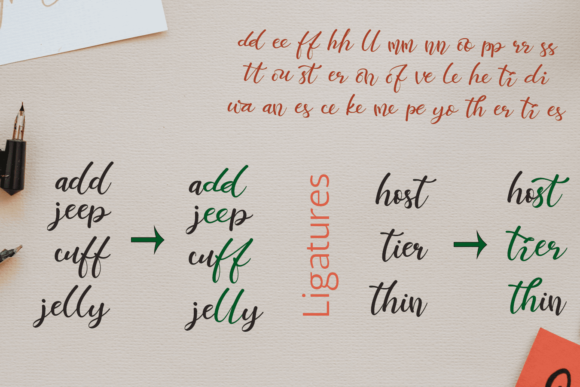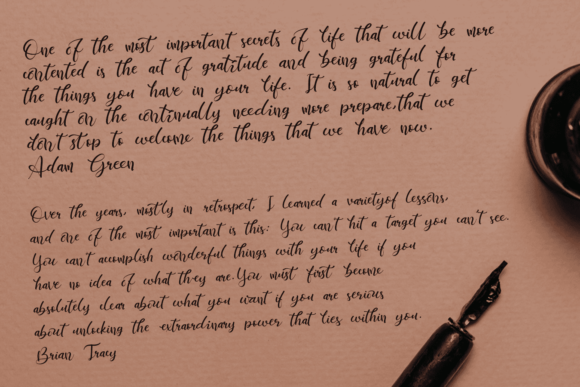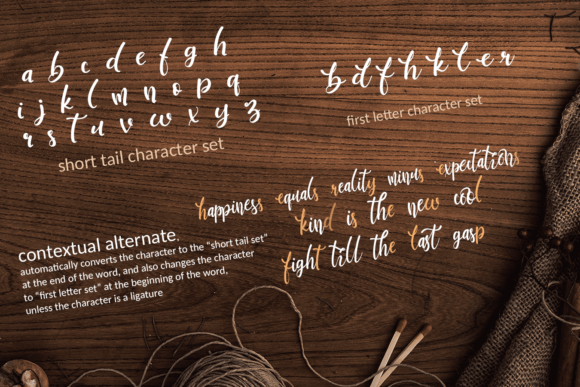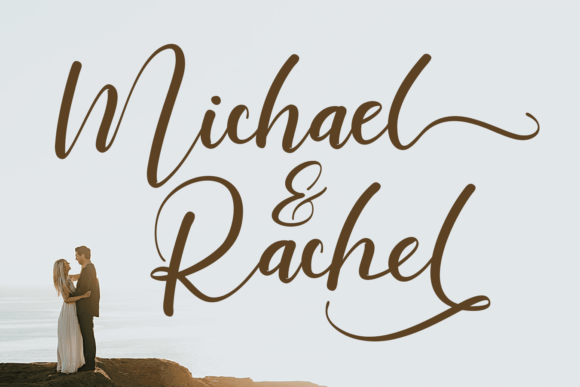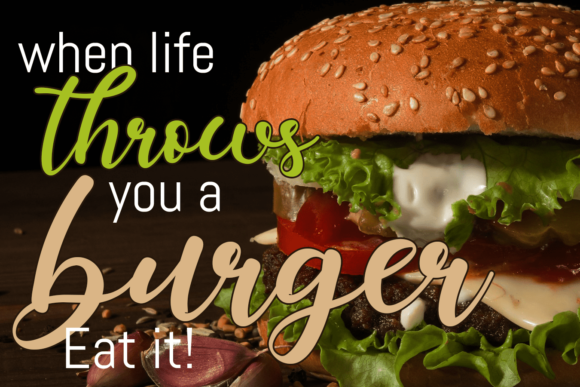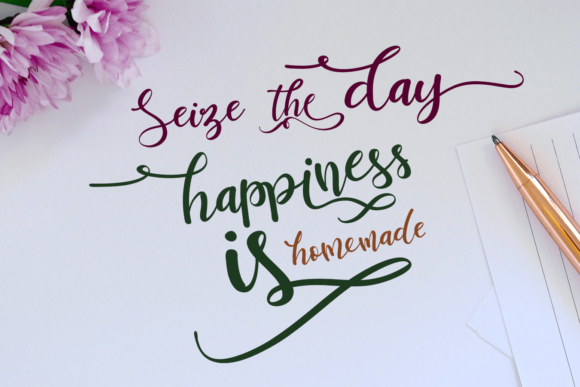
The Perfect Blend of Style and Function: Unlocking the Power of Groovy Soumaya Font
As a designer, there’s nothing quite like the rush of creativity that comes with a blank canvas and a fresh idea. You’re browsing through font collections, searching for that one perfect match that will elevate your project from good to great. And then, you stumble upon it – the Groovy Soumaya Font. Its beautiful, flowing handwritten style is like a breath of fresh air, begging to be used on everything from wall displays to wedding invitations.
This versatile font is more than just a pretty face; it’s a powerful tool in your design arsenal. With its PUA encoding, you can access all the amazing glyphs and ligatures with ease, taking your typography to the next level. Whether you’re a seasoned pro or just starting out, the Groovy Soumaya Font is an invaluable asset that will help you create truly impressive designs.
- Unique Characteristics: The Groovy Soumaya Font features a unique, cursive script with a touch of elegance and sophistication, making it perfect for creative and artistic projects.
Groovy Soumaya Font Review
I recently had the chance to work with the Groovy Soumaya Font, and I must say it’s a unique and eye-catching choice. Here are my honest thoughts:
- Unconventional style: The Groovy Soumaya Font’s blend of geometric and hand-drawn elements makes it perfect for adding a touch of whimsy to your designs.
- Customizability: With various font weights and styles available, you can easily find the right version to suit your project’s needs.
- Creativity booster: This font can inspire you to think outside the box and try new design approaches.
- Readability: The font’s intricate details can sometimes make it difficult to read, especially at smaller font sizes.
- Limited use cases: Due to its unique style, the Groovy Soumaya Font might not be suitable for all projects, such as body text or formal documents.
Overall, I think the Groovy Soumaya Font is a great choice for designers looking to add some visual interest to their work. While it may not be suitable for every project, its customizability and creativity-boosting potential make it a valuable addition to any designer’s toolkit.
The Groovy Soumaya Font is ideal for creating eye-catching headlines, logos, and titles.
Use it to add a touch of sophistication and elegance to your designs.
Some common use cases include:
– Fashion and beauty branding
– Luxury product packaging
– High-end event invitations